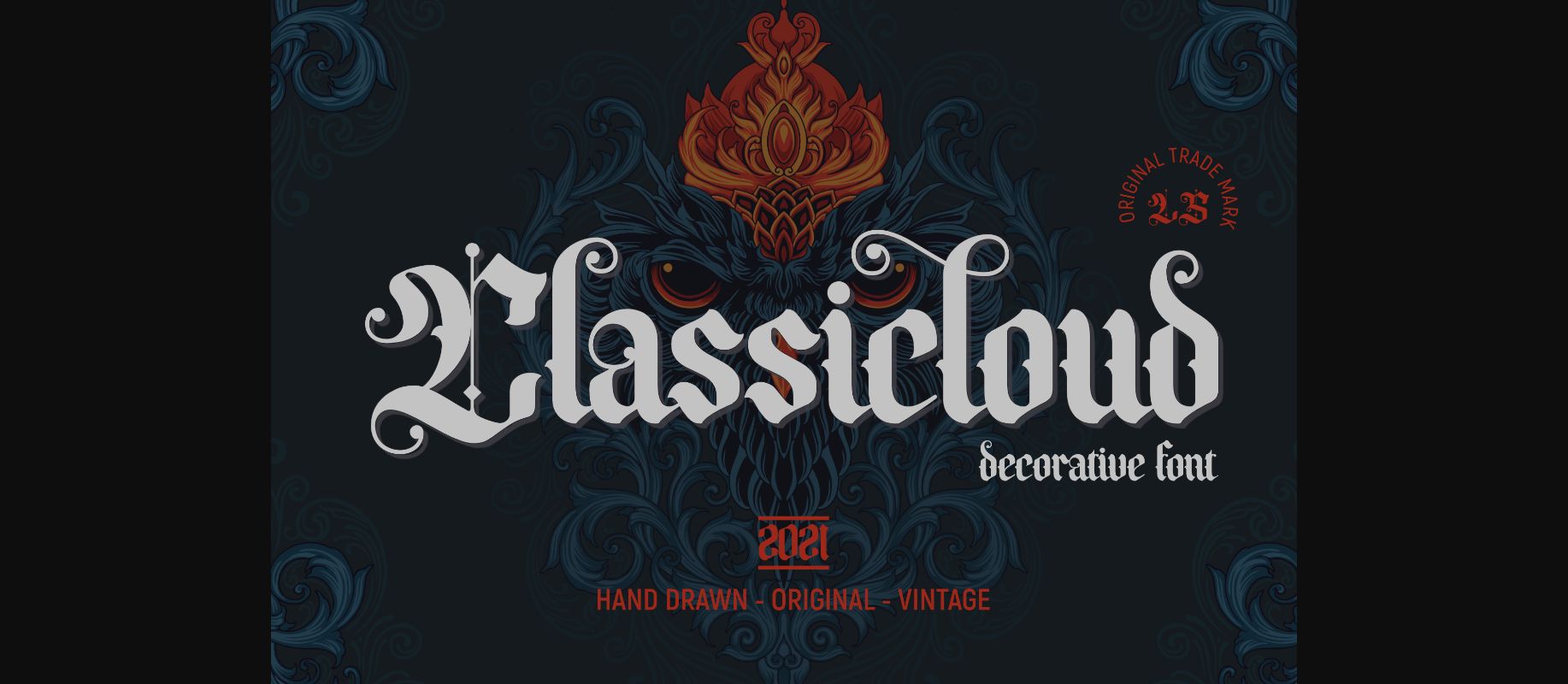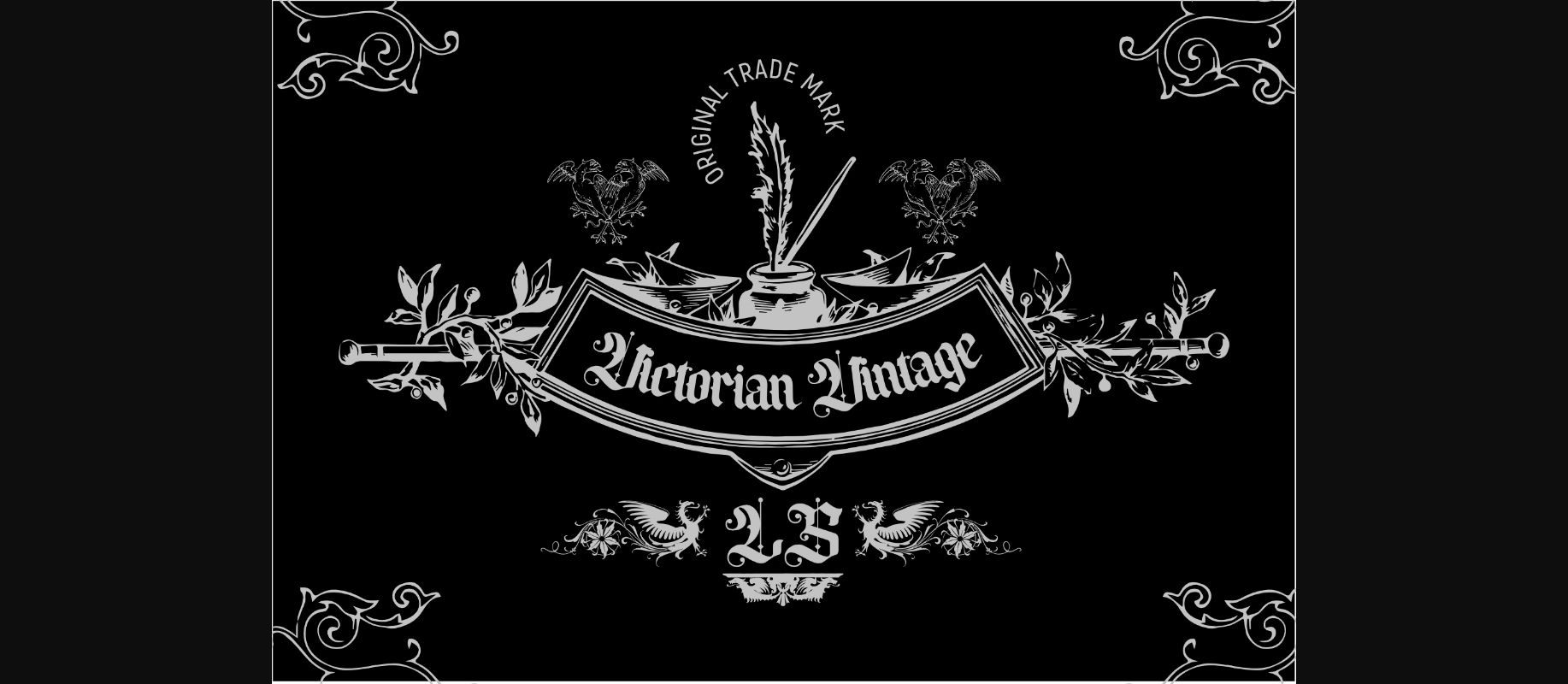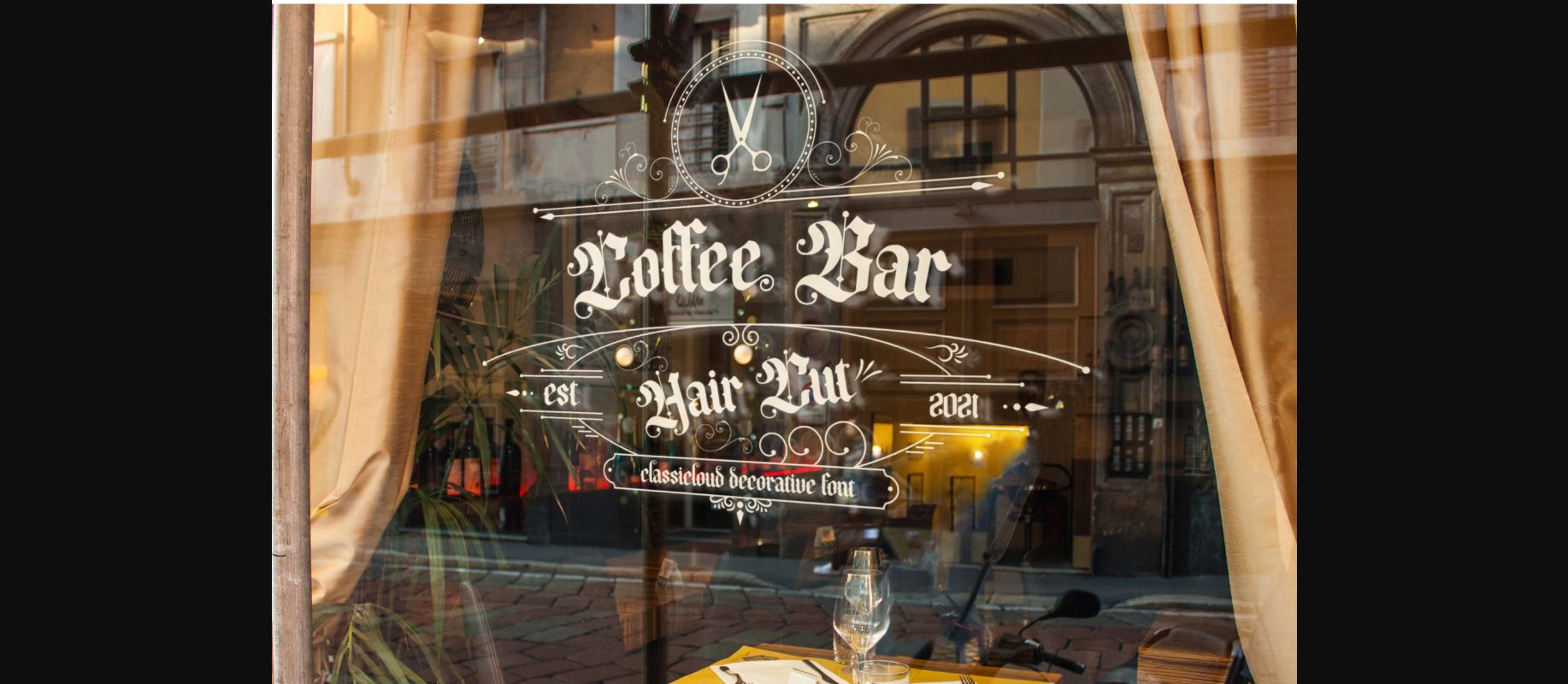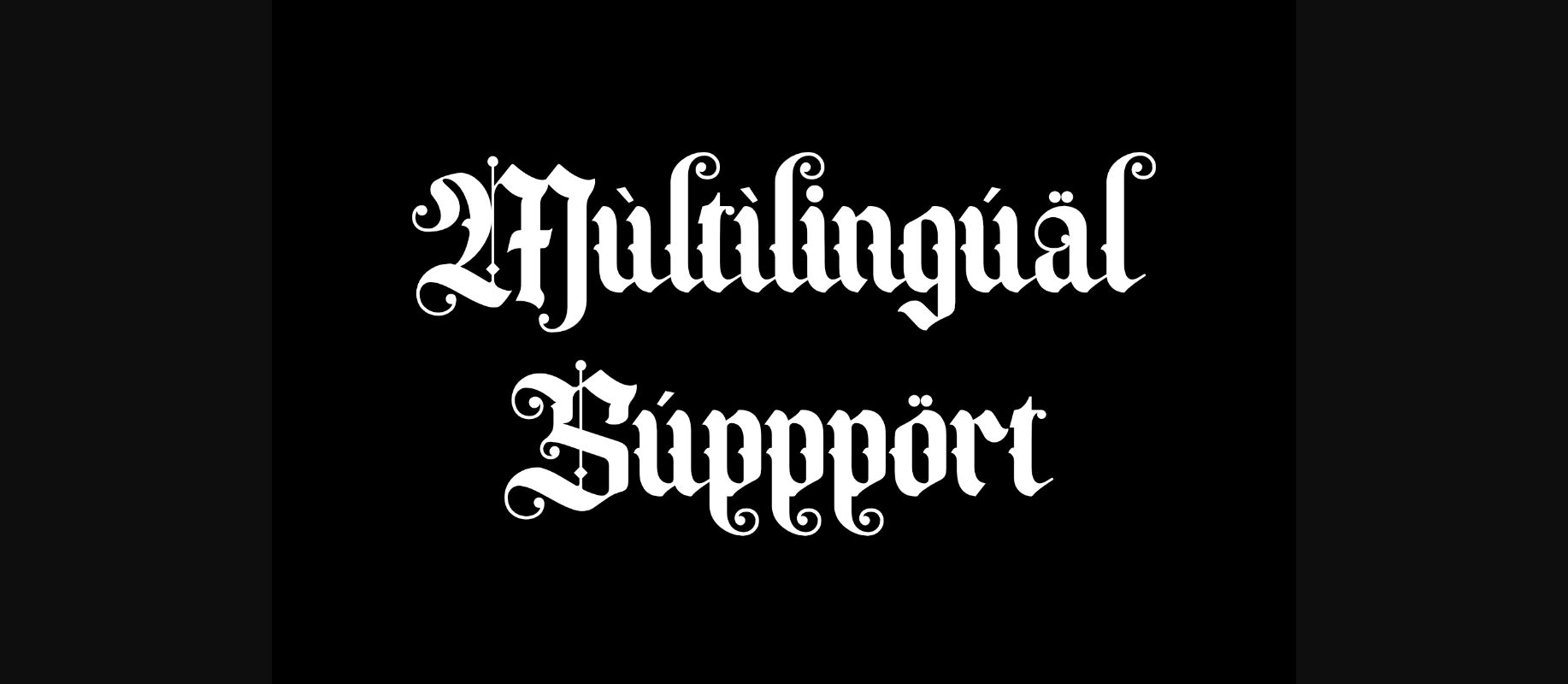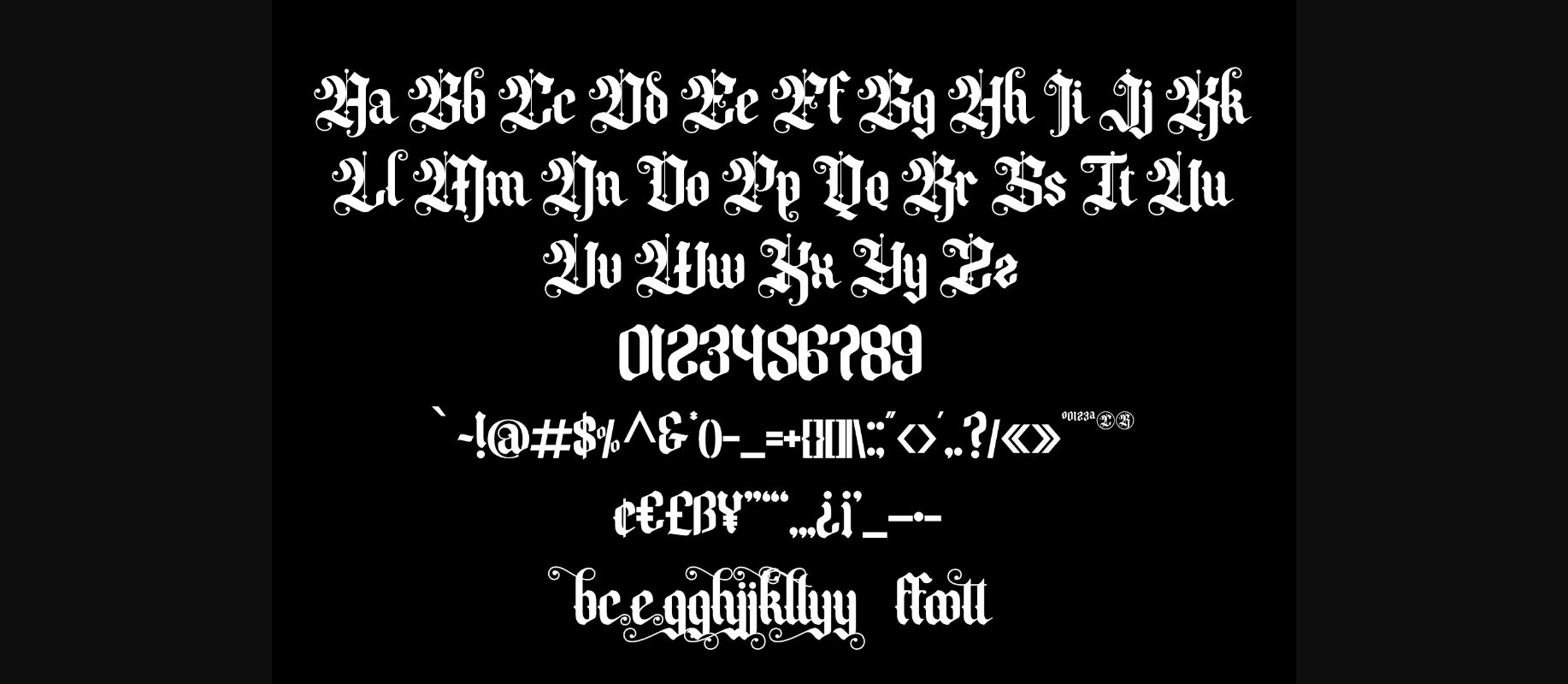
About Classicloud Font
Classicloud feels playfully nostalgic and delivers an incredible vintage aesthetic. Use this lovely font to add that special retro touch to any design idea you can think of!